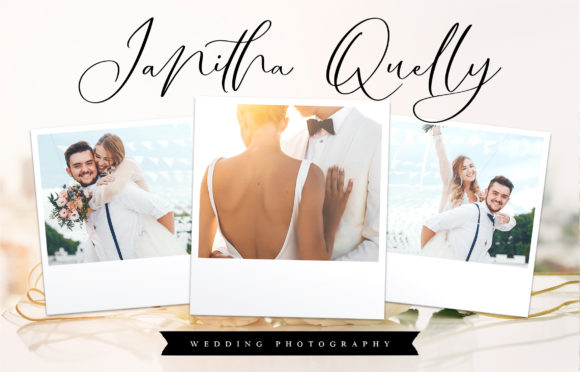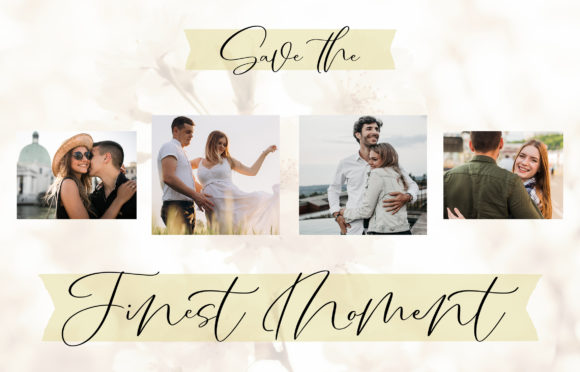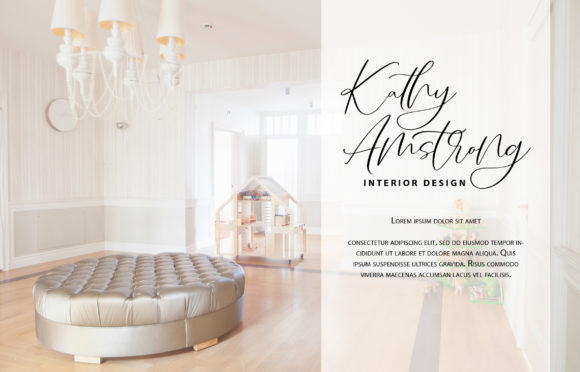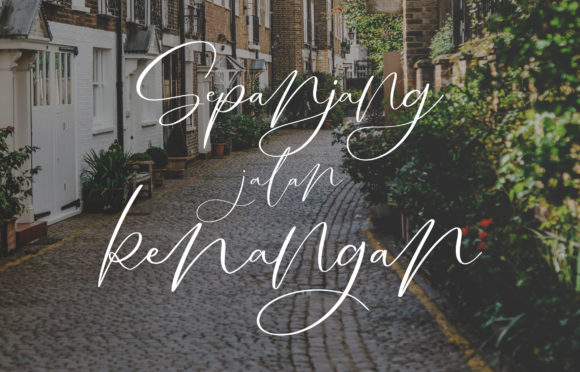
Salting Font
About Salting Font
Salting feels equally relaxed and elegant. It looks gorgeous on wedding invitations, thank you cards, quotes, greeting cards, logos, business cards and every other design which needs a handwritten touch.